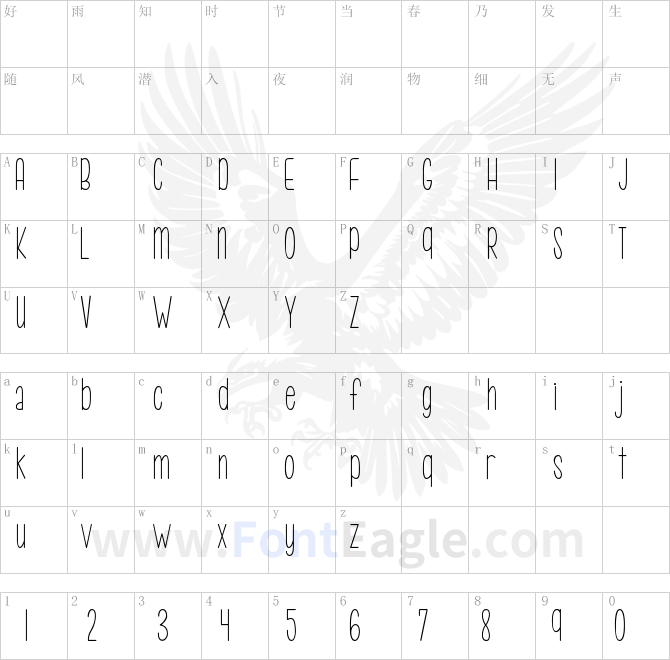
- Font name:KG Call Me Maybe
- Font Subfamily ID:KimberlyGeswein: KG Call Me Maybe: 2012
- Font Full Name:KG Call Me Maybe
- Font Version:Version 1.001 2012
- Postscript:KGCallMeMaybe
- Font Copyright:Copyright (c) 2012 by Kimberly Geswein. All rights reserved.